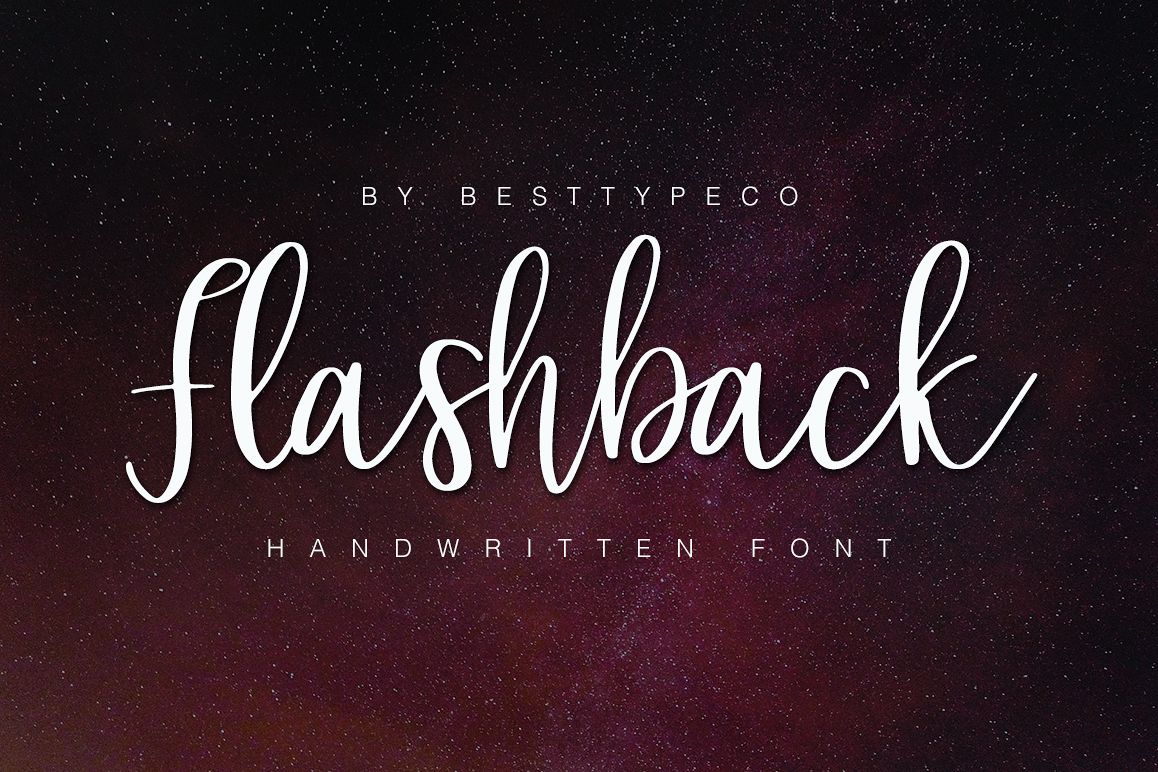
Flashback - a new fresh handmade calligraphy font. Very suitable for greeting cards, branding materials, business cards, quotes, posters, and more!This font are perfect for wedding postcard. Or you can create perfect and unique design of your logo, blog, stationery, marketing, magazines and more :) Flashback OTF Flashback TTF Flashback WOFF